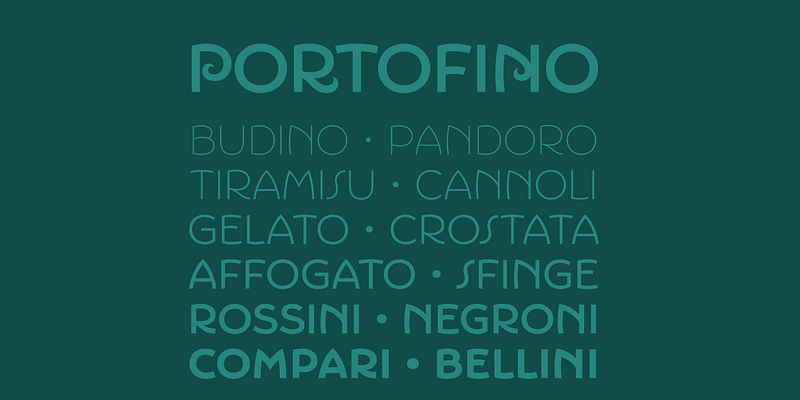
Influenced by Italian hand-lettered posters from the early twentieth century, Portofino is a charming display typeface with expressive forms complementing its underlying geometric proportions.